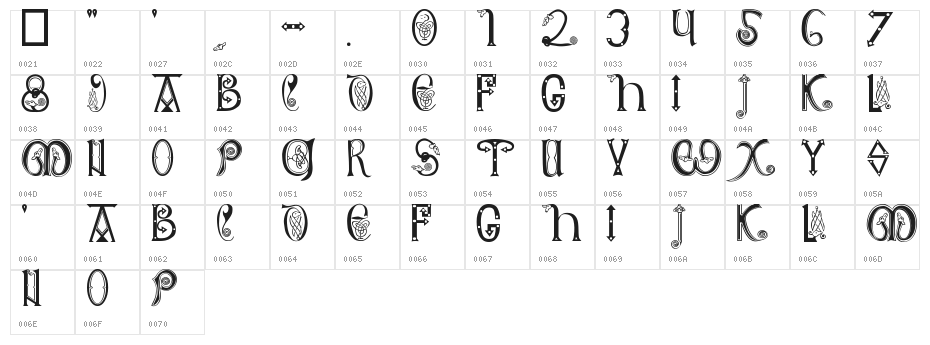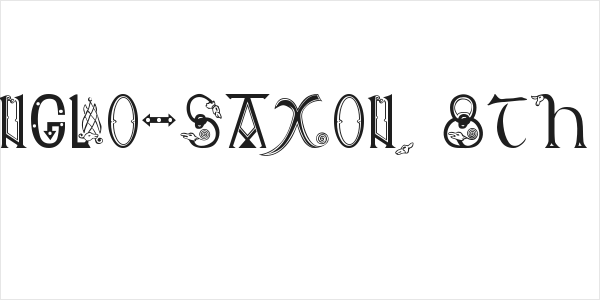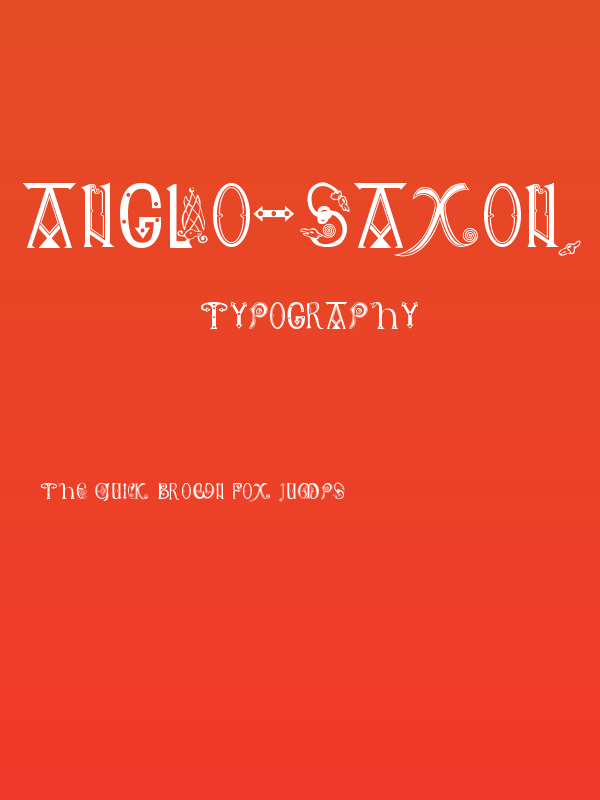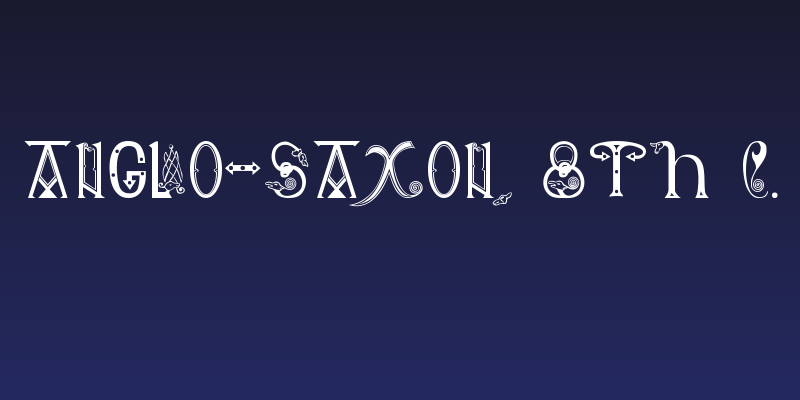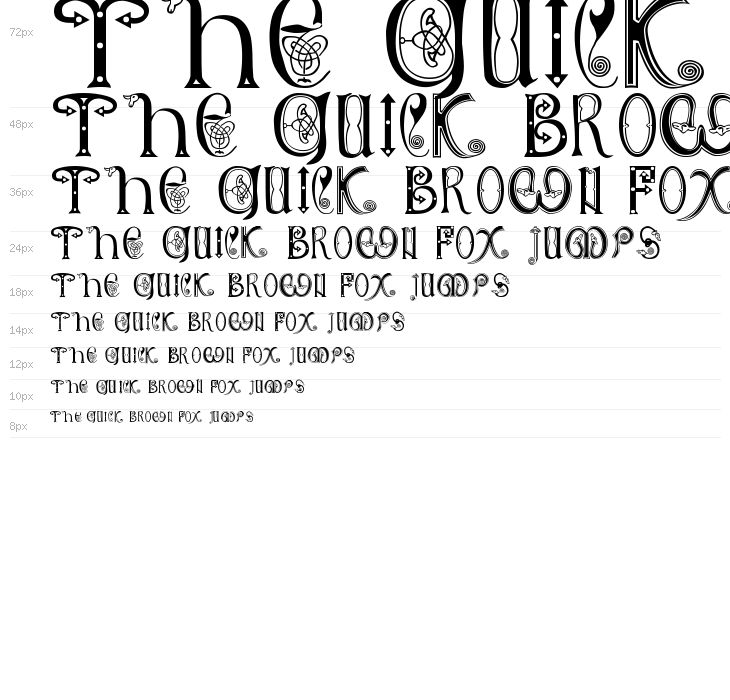
Anglo-Saxon, 8th c. Font
Anglo-Saxon, 8th c. Description
This font is a decorative and intricate typeface inspired by Anglo-Saxon art from the 8th century. Each character is adorned with elaborate patterns and motifs reminiscent of ancient manuscripts and stone carvings. The uppercase letters feature a mix of geometric shapes and organic forms, creating a sense of historical richness and cultural depth. The lowercase letters maintain the same level of detail, ensuring consistency throughout the typeface. Numbers and special characters are equally ornate, making this font suitable for projects that require a touch of antiquity and elegance. The overall design is highly stylized, with a focus on visual complexity and artistic expression.